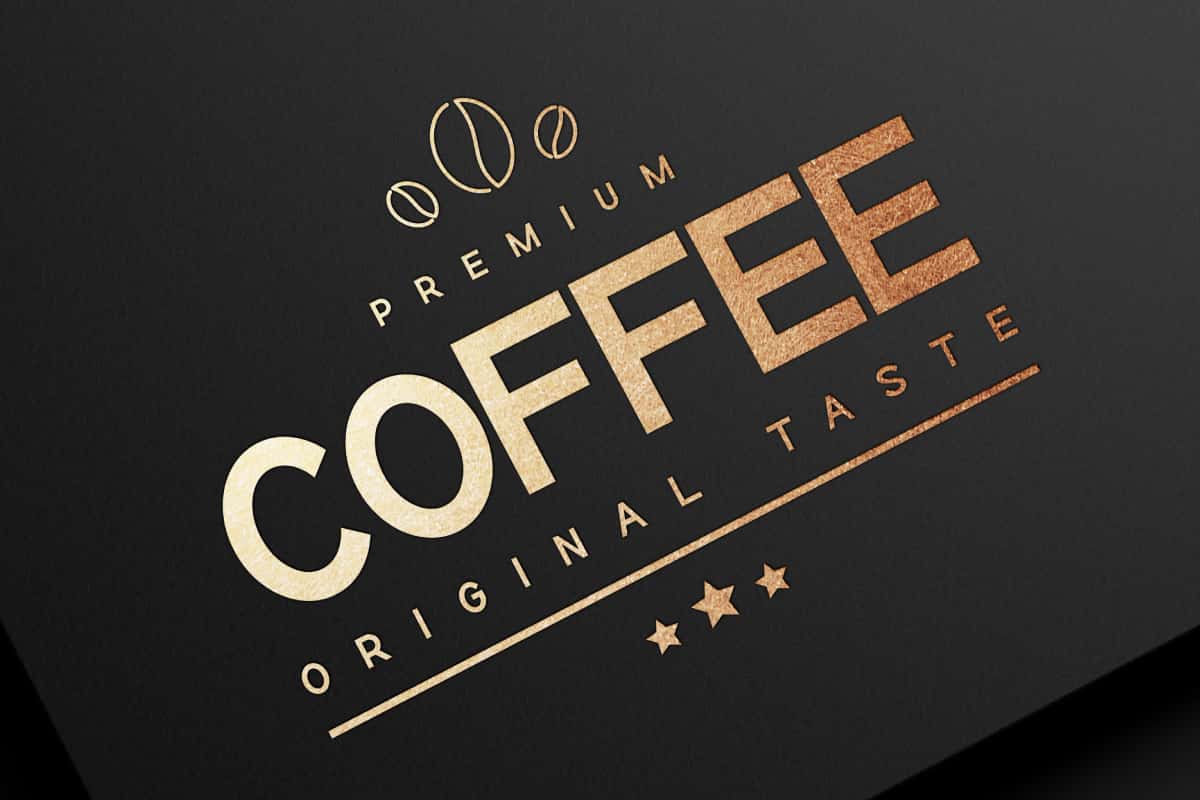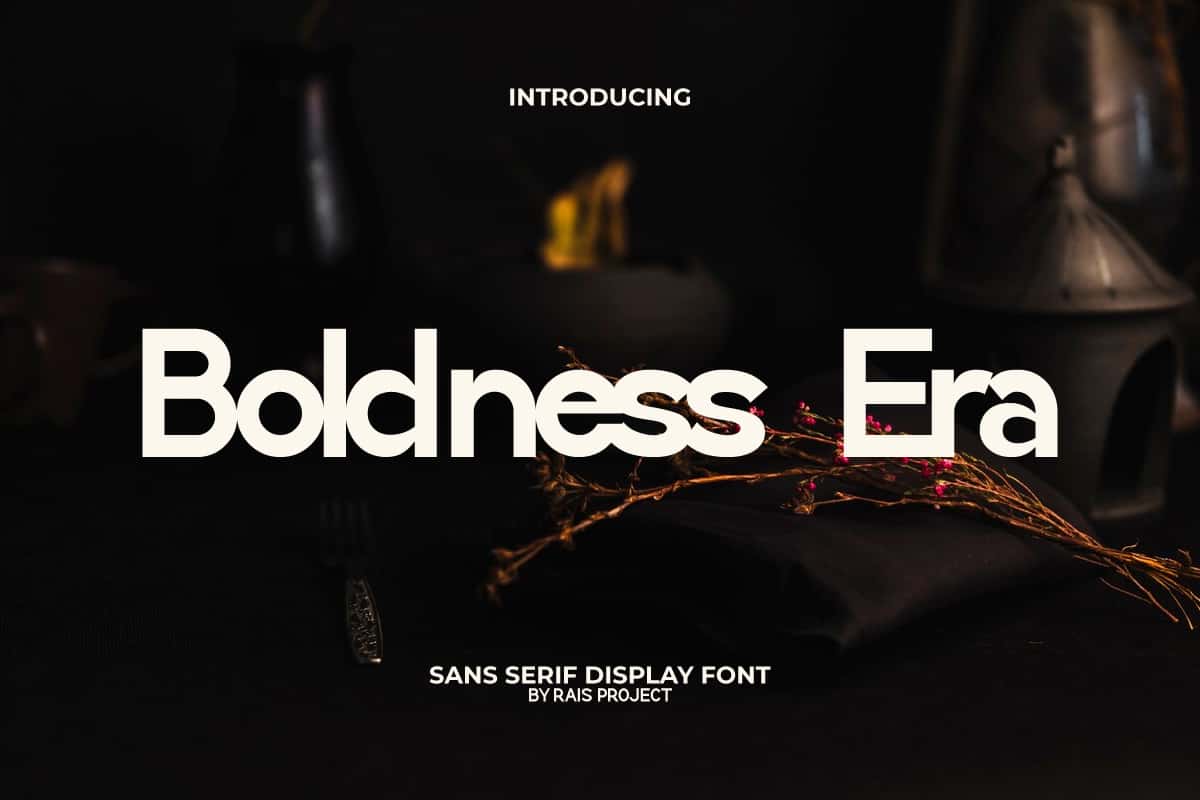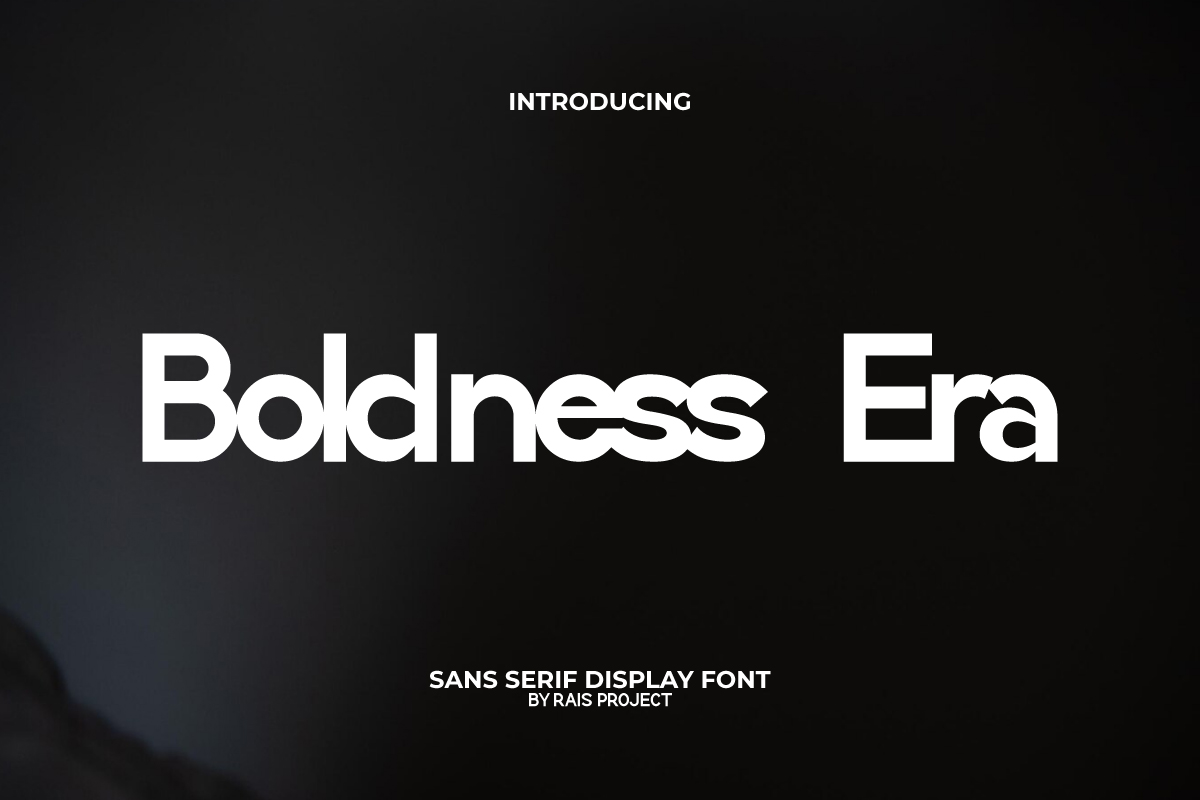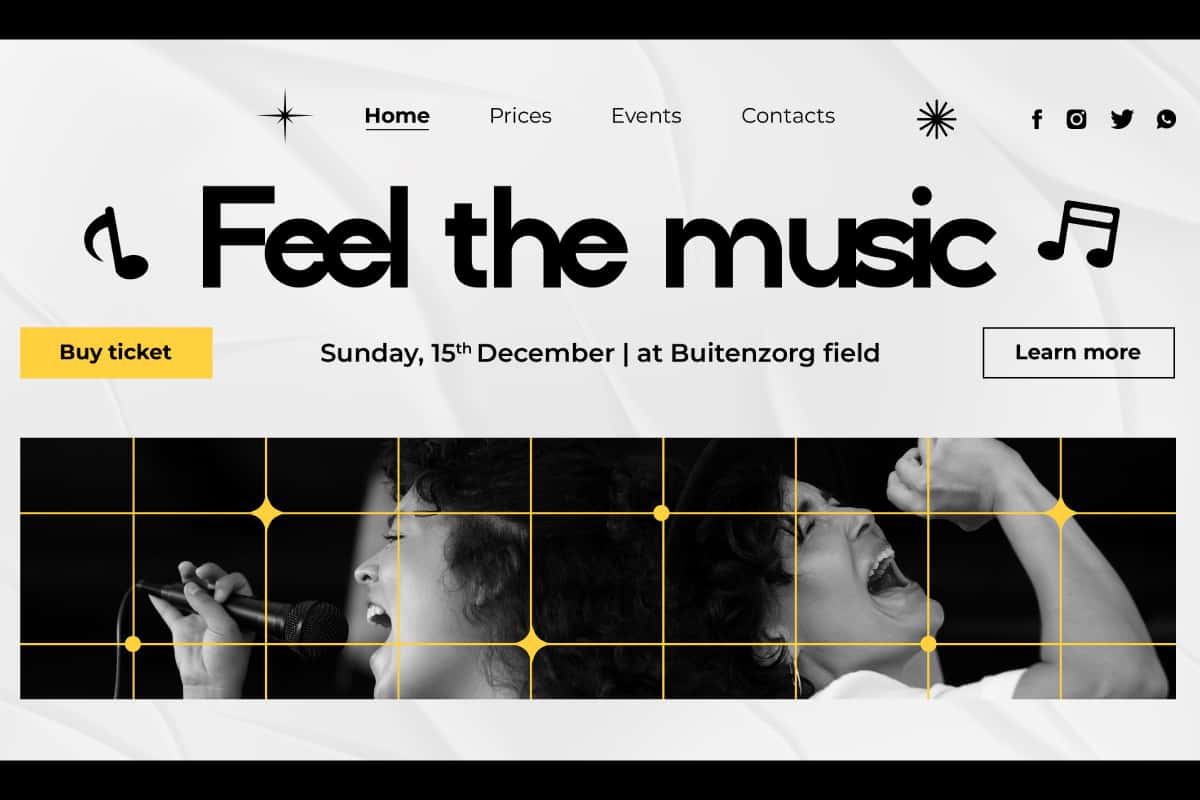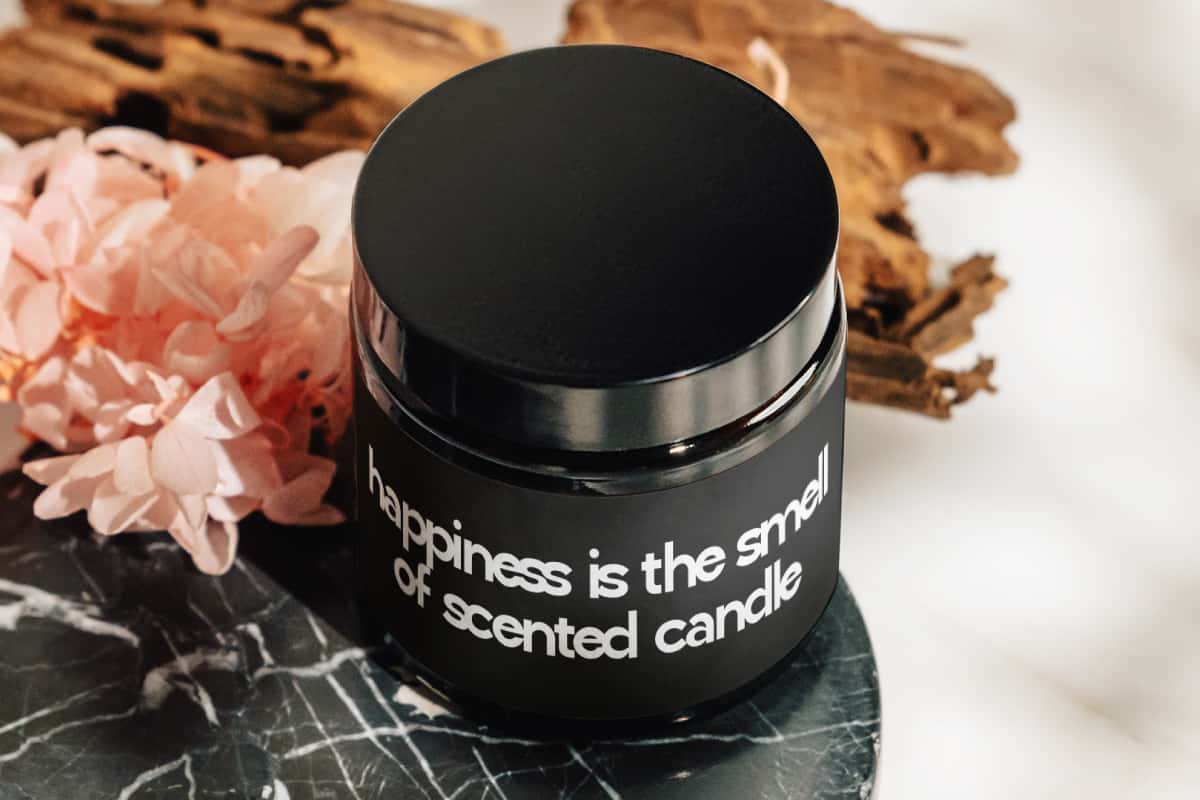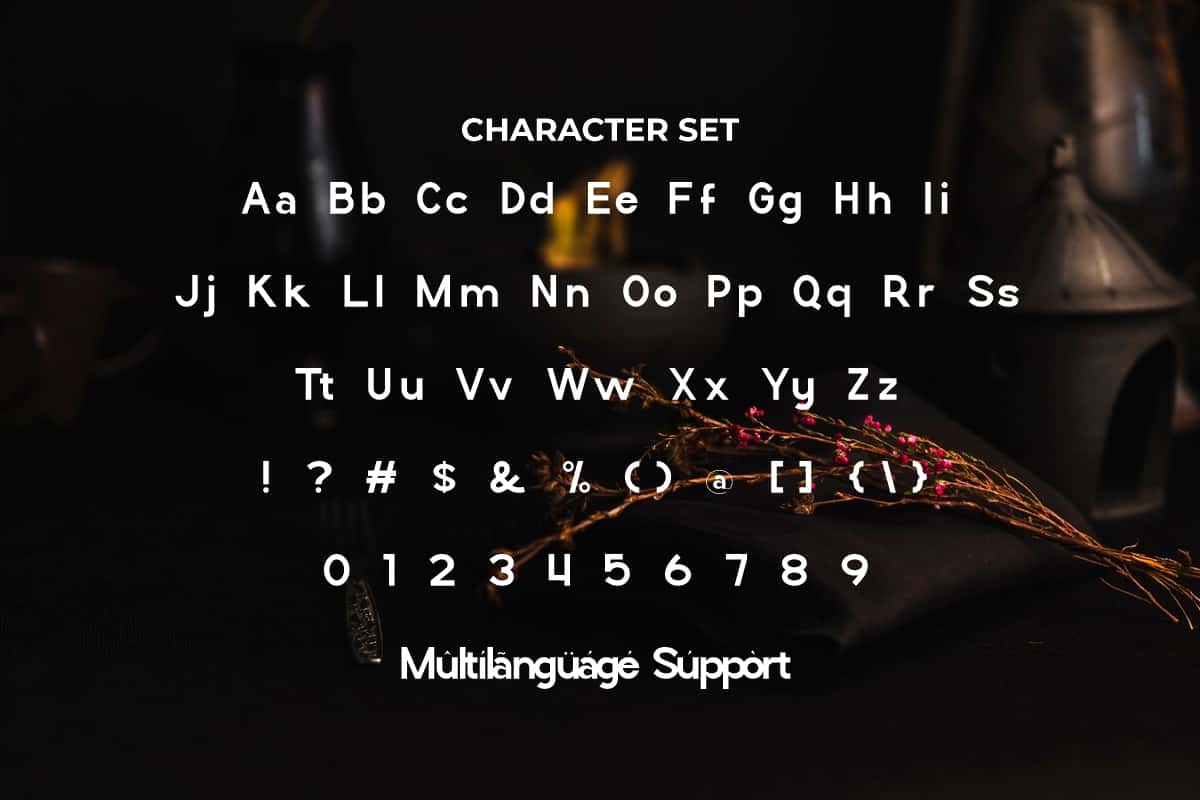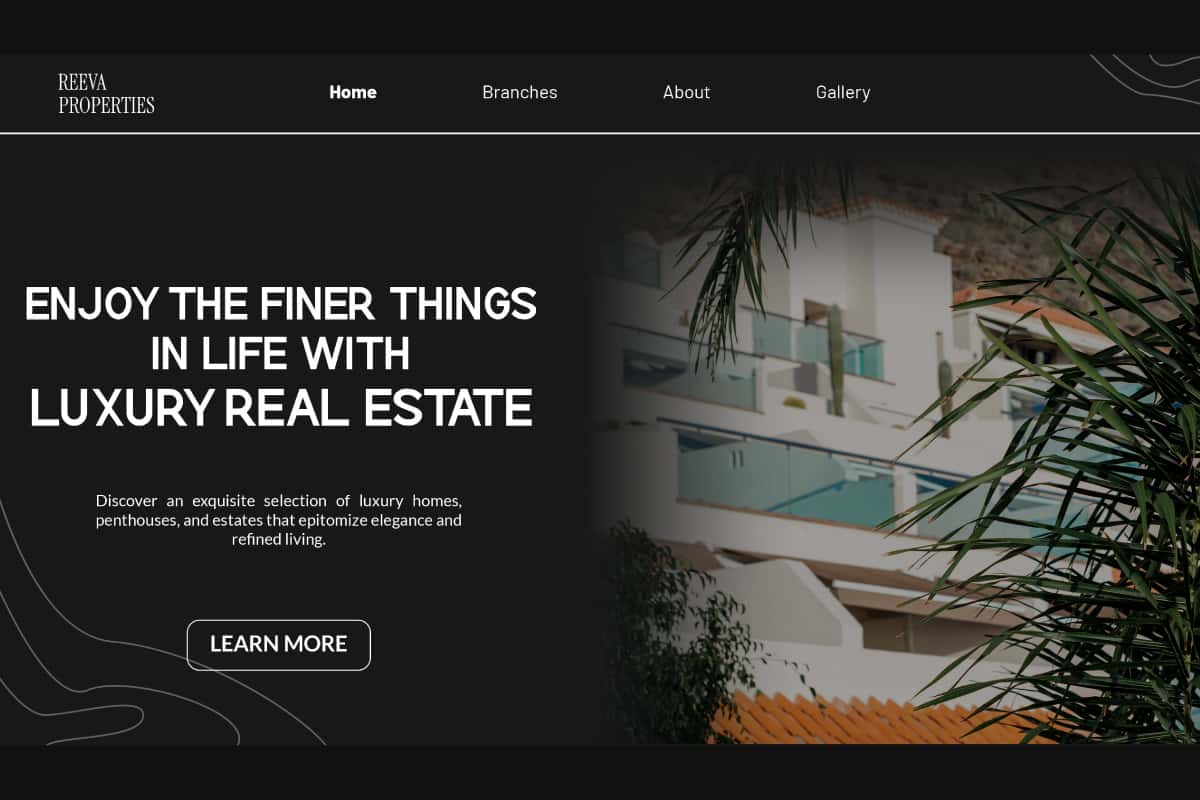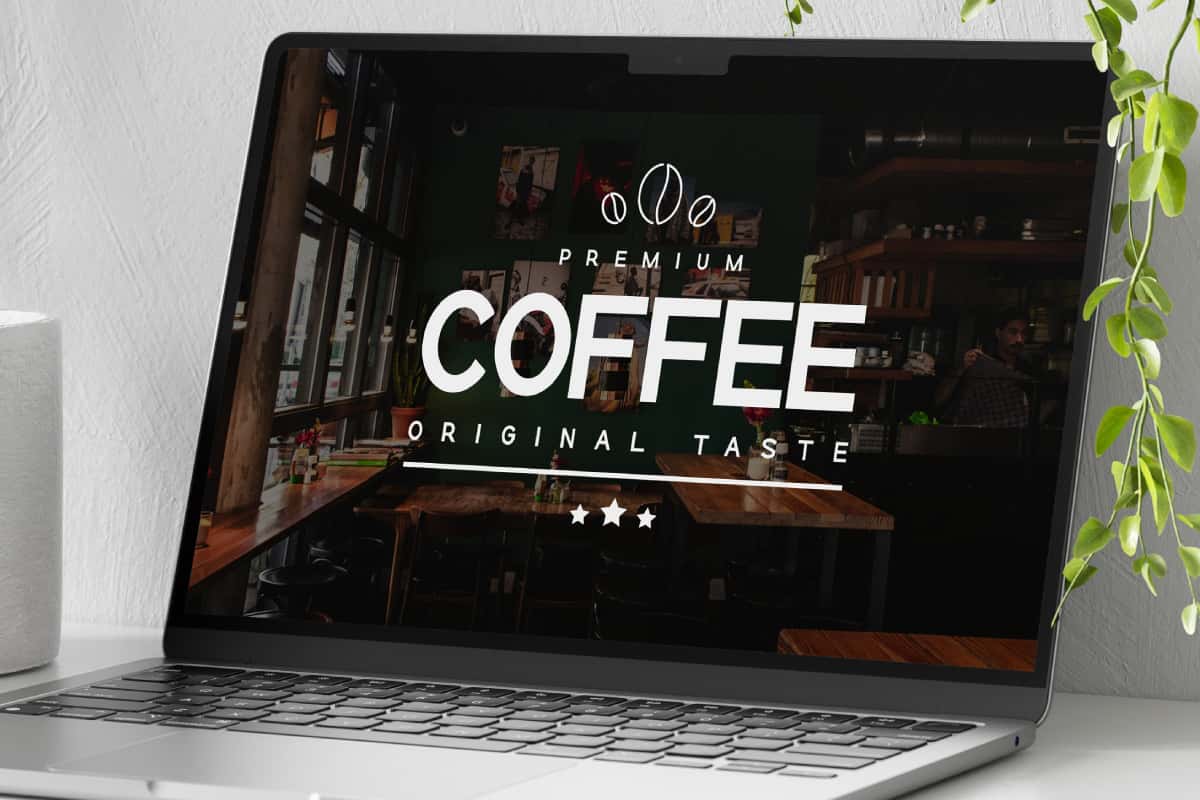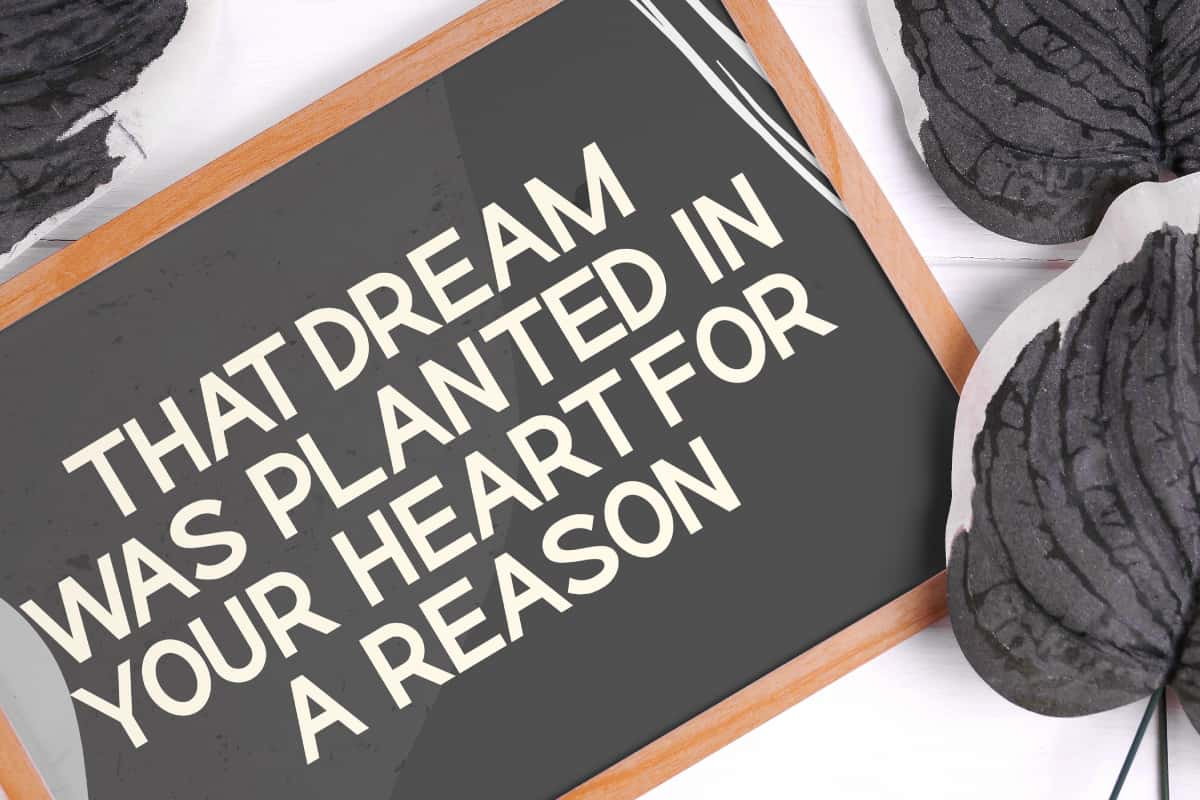
Boldness Era Font
Boldness Era Font is a sans serif font with a casual and bold concept to make your design looks stylish!
Boldness Era Font is a bold sans serif font to make your designs standout, by RaisProject. This font has a casual style with typical Sans Serif characteristics, the position of the characters close together makes it look unique. It will be great for custom design, poster, label, signage, stationery, product packaging, quotes, brand image, advertisement, invitation, marketing material, website page, and more!
Boldness Era Font includes a full set of ALL CAPS for Uppercase and Lowercase Letters, Numerals, and large range of Punctuation. This cool font will be suitable for various industries, such as homeware, real estate, restaurant, sports, automotive, fashion, game, barber shop, cafe, event or festival, photography, printing, publishing, etc.